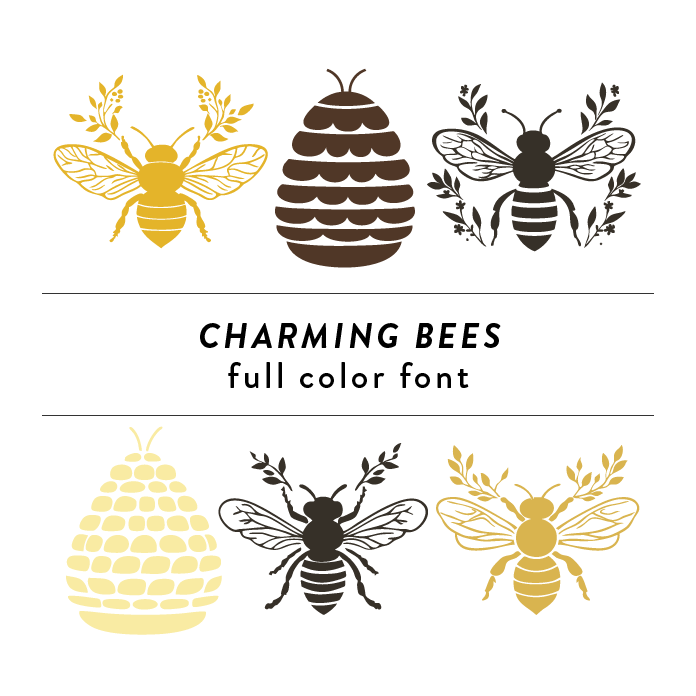
Charming Bees Full Color Font is a playful and whimsical font design inspired by summer and bugs. The font features intricate details of bees and honeycombs in vibrant colors, making it perfect for craft projects, invitations, and seasonal designs. Its unique style adds a touch of charm and character to any creative project. This font is a OTF craft font that will appear in color only when used with the silhouette software.